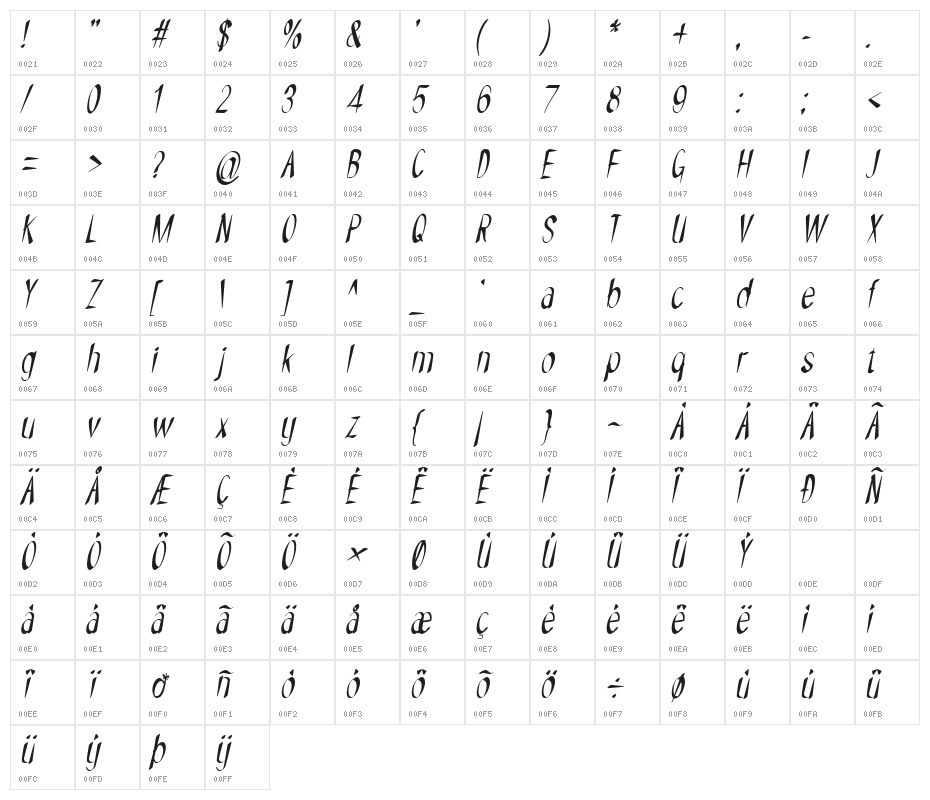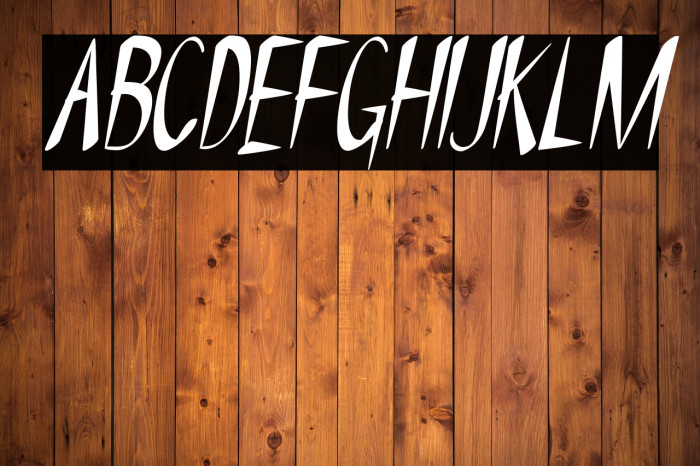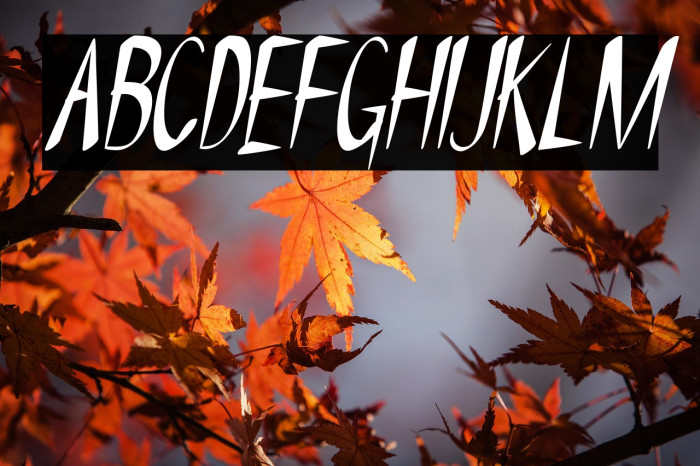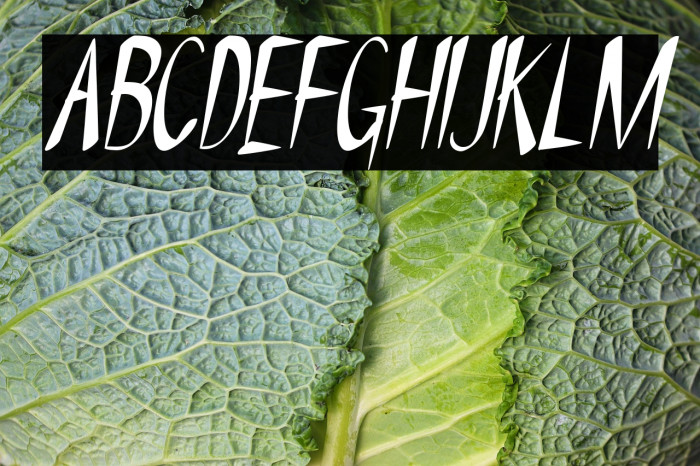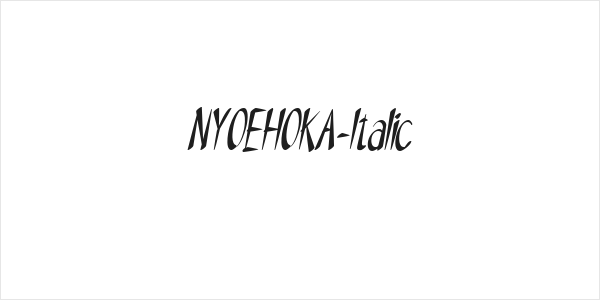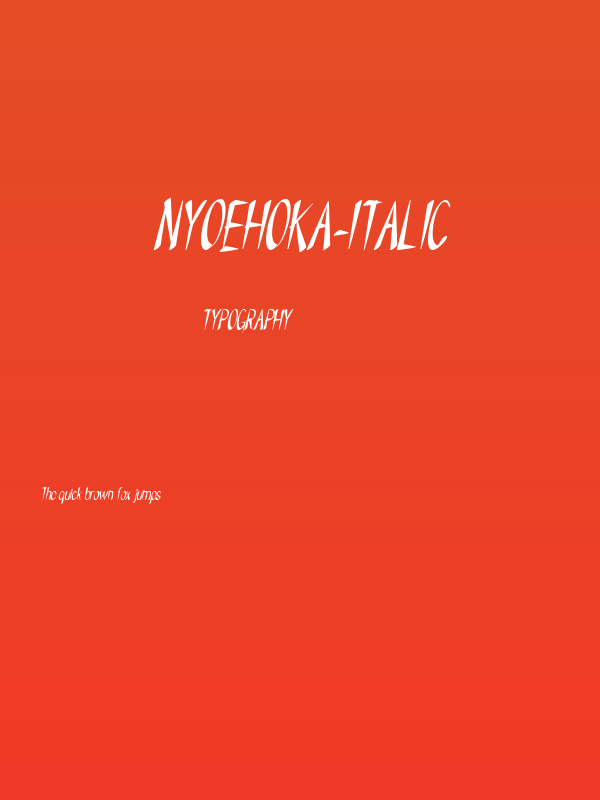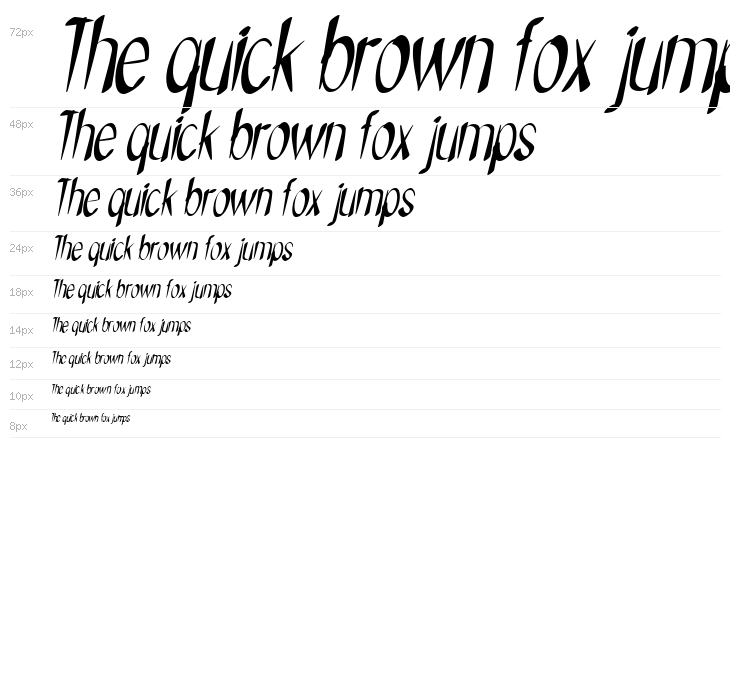
NYOEHOKA-Italic Font
NYOEHOKA-Italic Description
This font features a dynamic and energetic style with a pronounced italic slant, giving it a sense of movement and fluidity. The characters are elongated and slightly condensed, with sharp, angular strokes that create a bold and striking appearance. The uppercase letters are tall and narrow, while the lowercase letters maintain a consistent flow, enhancing readability. The numbers and special characters follow the same stylistic cues, ensuring a cohesive look across all elements. The overall design is modern and expressive, making it suitable for projects that require a touch of flair and personality.